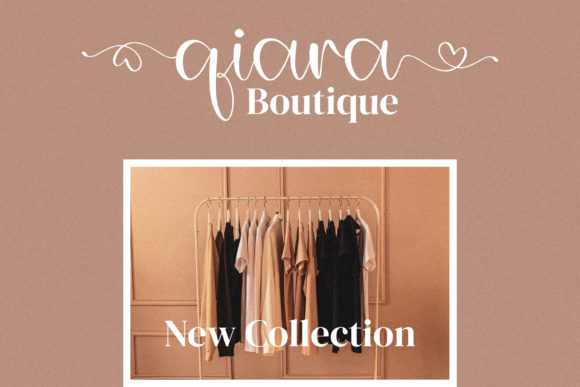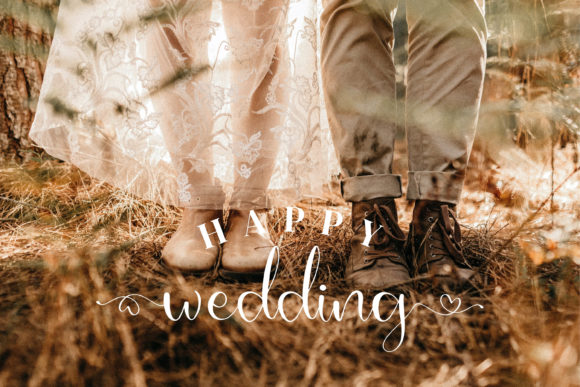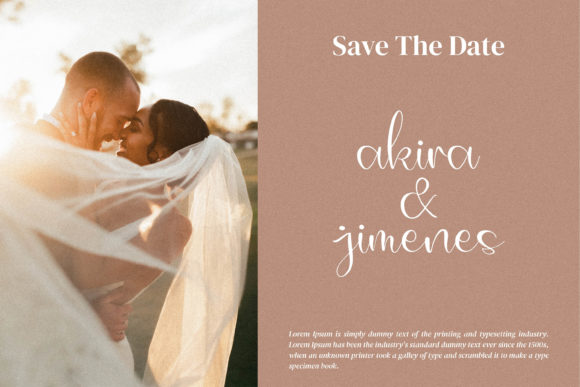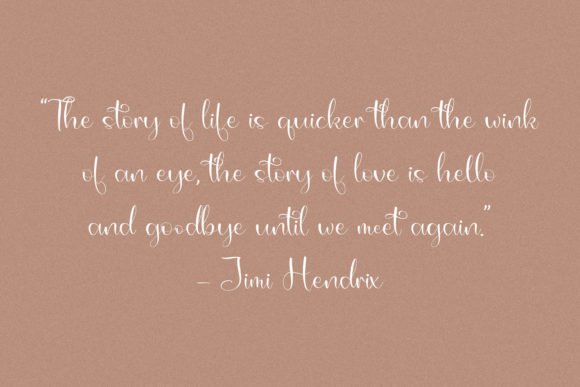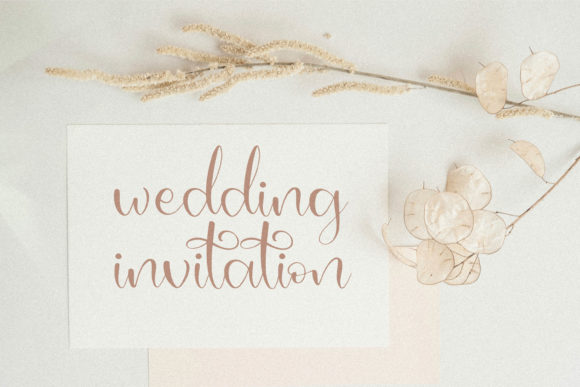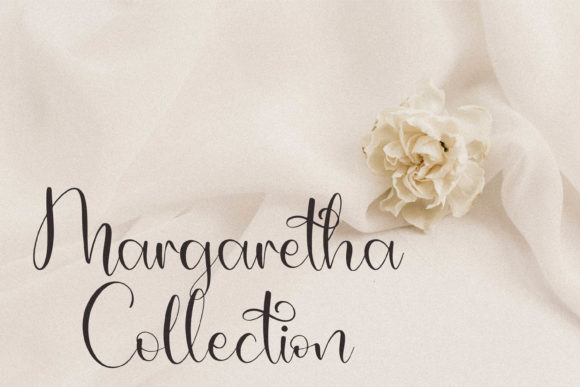
Introduction to Chikha Font
Chikha is a romantic and chic handwritten font.
It is PUA encoded which means you can access all of the glyphs and swashes with ease Add it confidently to your projects, and you will love the results.
Key Features of Chikha Font
Why Choose Chikha Font?